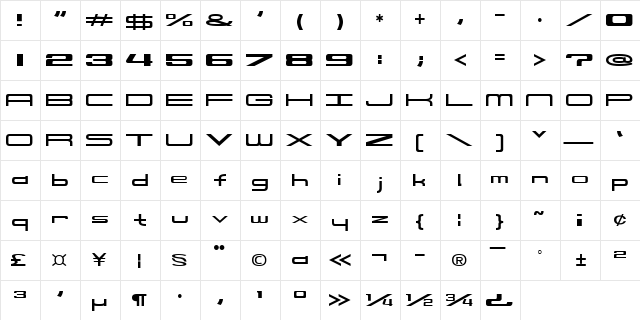
914-SOLID Regular
| Foundry | E. V. Norat II |
| Designer | E. V. Norat II |
Design Context for 914-SOLID Typeface
914-SOLID offers clean, dependable letterforms without strong stylistic allegiance, making it a practical choice for designers who need flexibility.